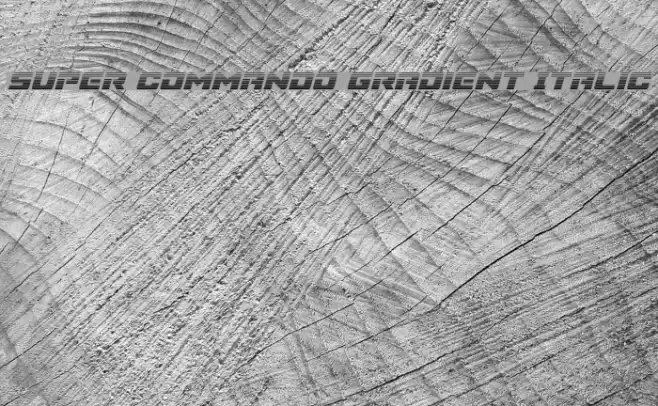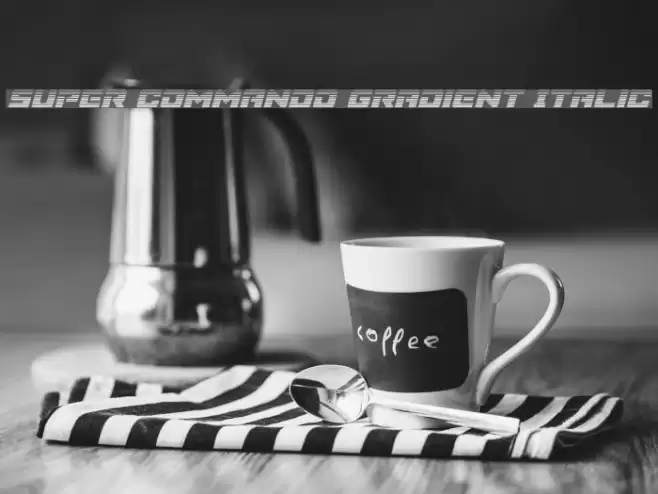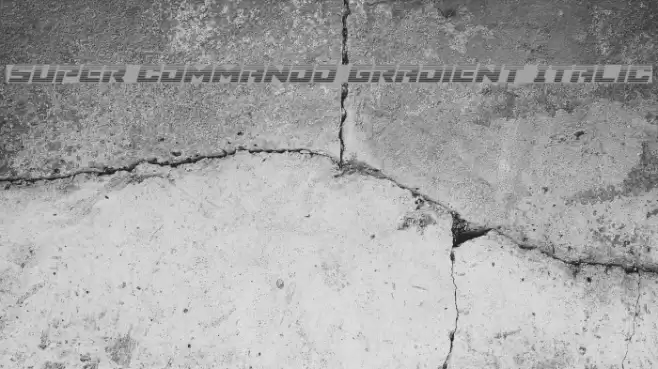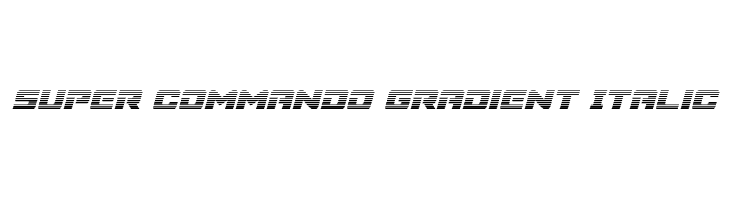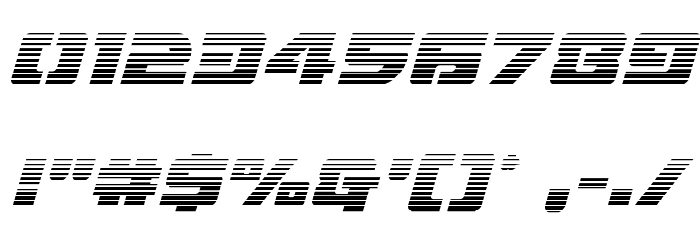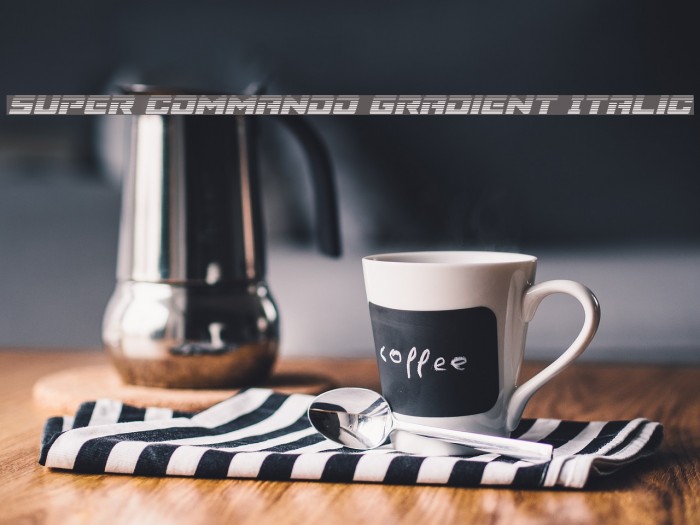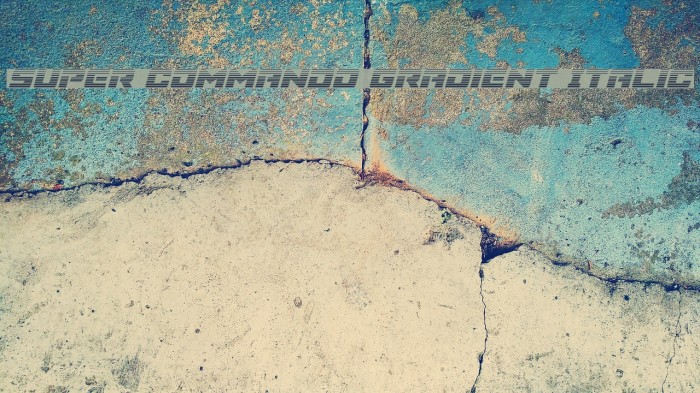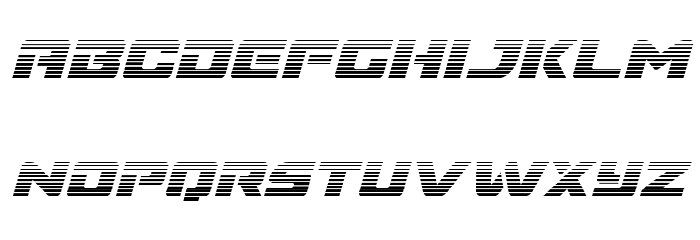
Super Commando Gradient Italic Font
Super Commando Gradient Italic Description
This font features a bold, futuristic design with a distinct gradient effect that gives each character a dynamic, three-dimensional appearance. The italicized style adds a sense of motion and speed, making it ideal for projects that require a modern and energetic look. The characters are constructed with horizontal lines that create a striped pattern, enhancing the visual impact and uniqueness of the font. The uppercase and lowercase letters maintain a consistent style, with sharp angles and clean lines that contribute to its sleek aesthetic. The numbers and special characters are designed with the same attention to detail, ensuring a cohesive look across all elements.
A bold, italicized font with a futuristic gradient effect and dynamic striped design from Uncategorized fonts.
- Proposed Projects: Ideal for sci-fi themed projects, video game titles, tech branding, and dynamic posters.
- Overall Style: Futuristic